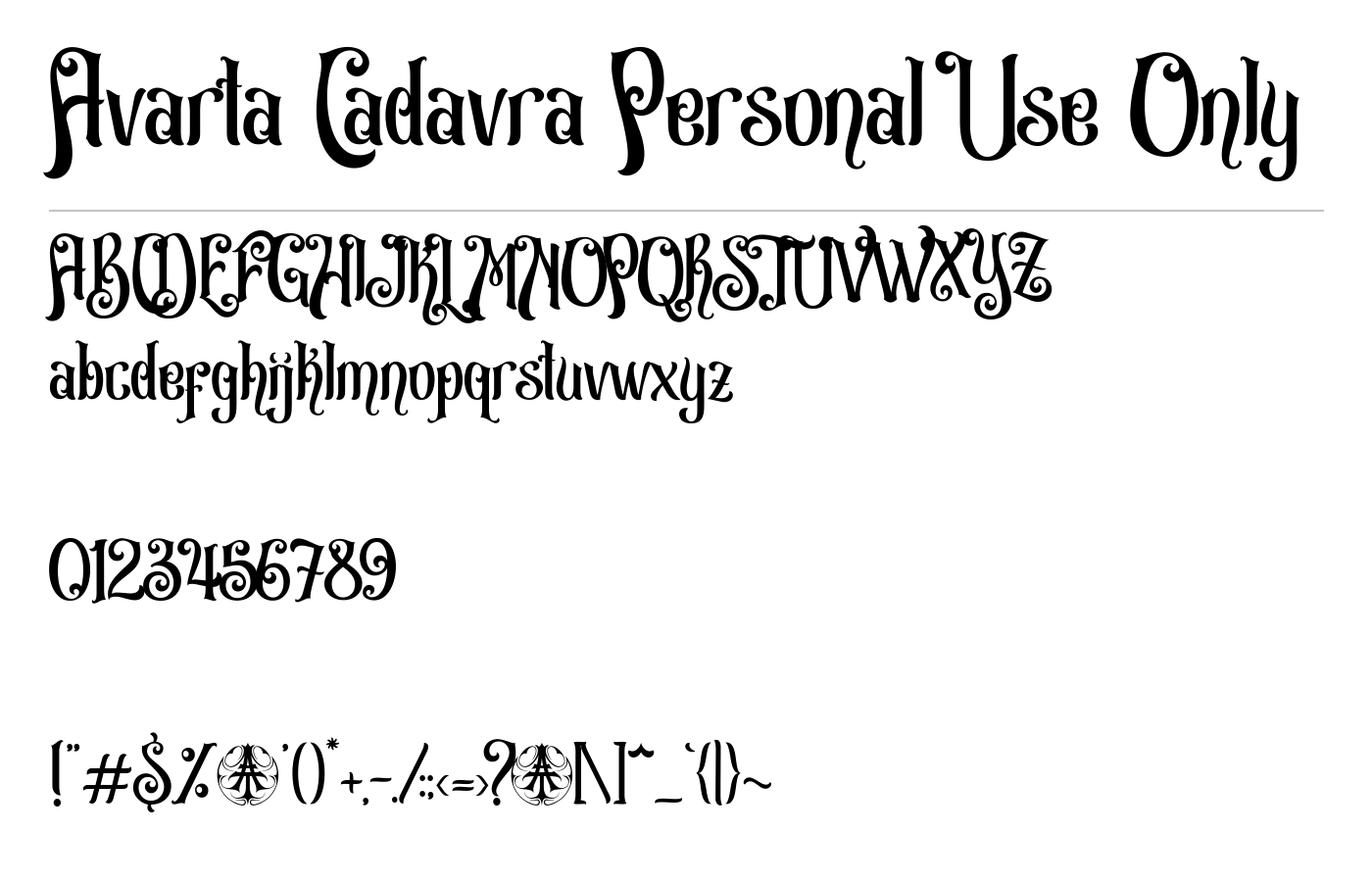
Avarta Cadavra is a decorative serif font with a whimsical, vintage charm, featuring tall, narrow letterforms with high contrast between thick and thin strokes. Its playful swirls and unique flourishes give it an enchanting, magical feel, perfect for creative headlines, posters, or branding that aims to evoke fantasy or old-world elegance. This font works best in display settings where its intricate details can shine without sacrificing readability.
Avarta Cadavra Personal Use Only Font
About Avarta Cadavra Personal Use Only Font